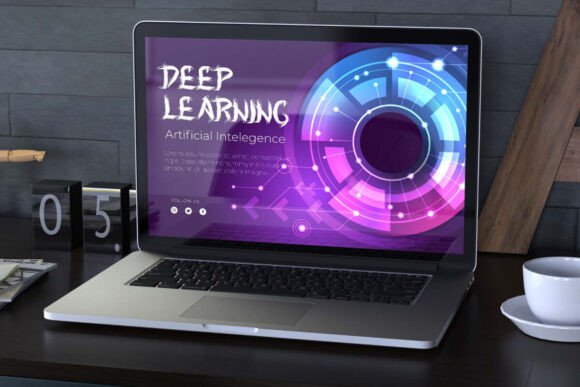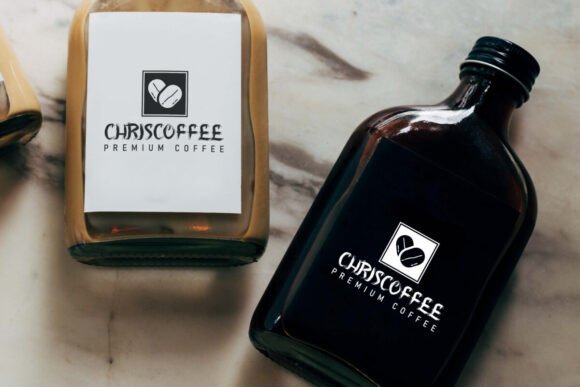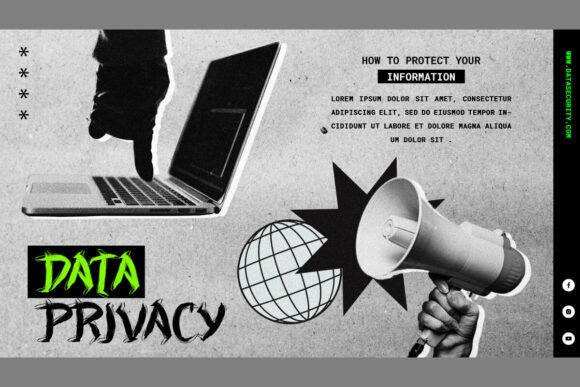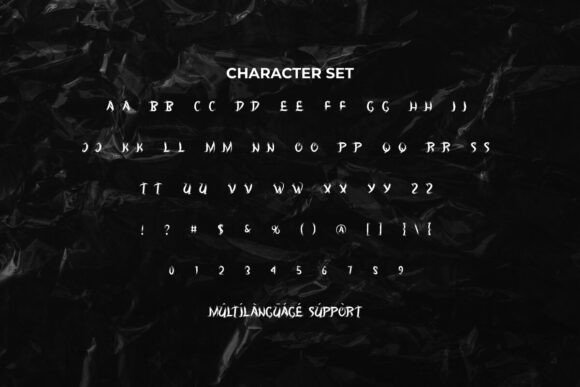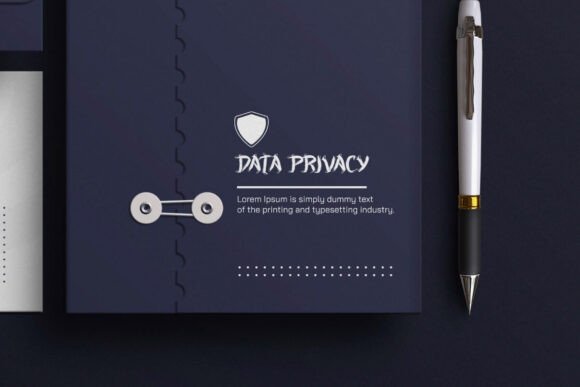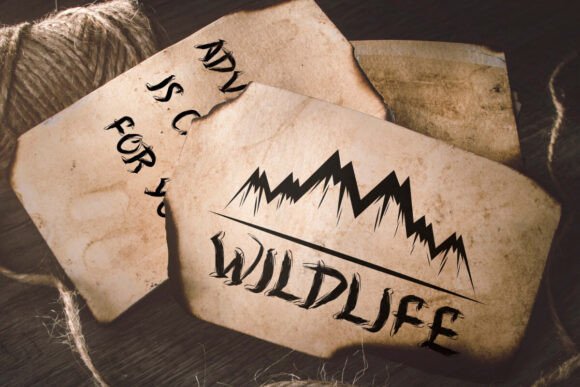
Introduction to Rip Privacy Font
RIP Privacy Font is a metal grunge brush display font with mysterious vibes.
This font is made with a messy brush texture and is still easy to read This brush font is for anyone who are needing of special scary look on their designs.